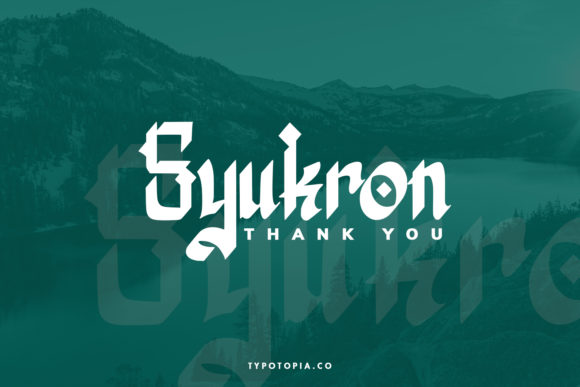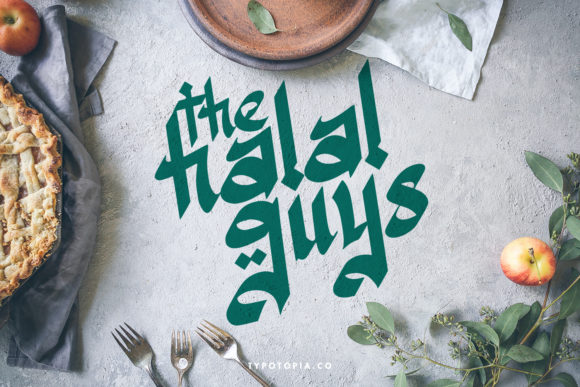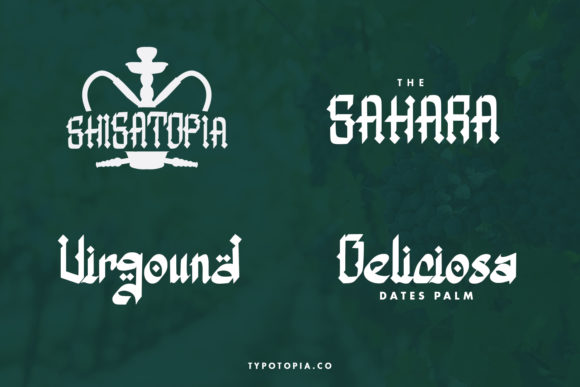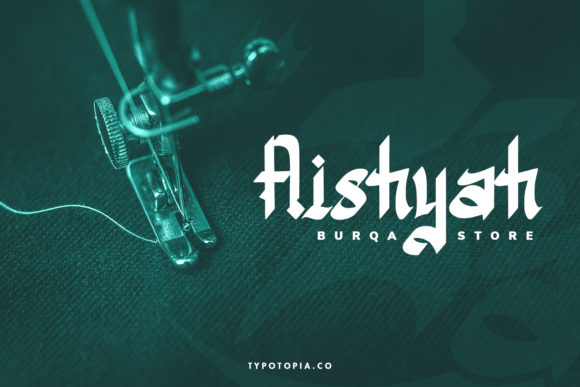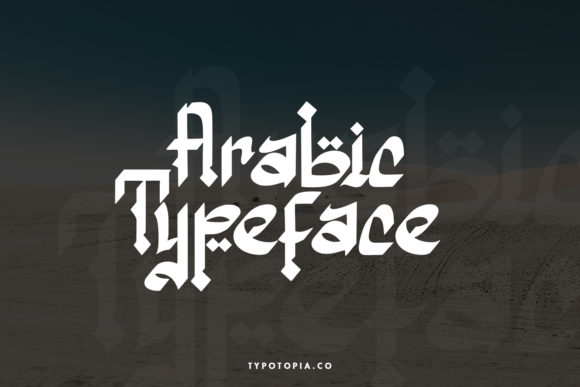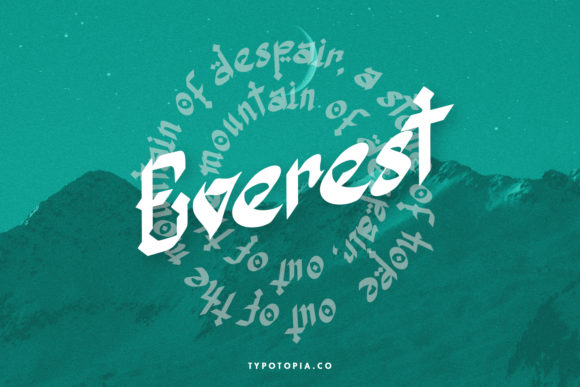
Unleash Your Creativity with the Assyam Font
Have you ever stared at a blank canvas, searching for the perfect spark to bring your creative vision to life? It’s that moment of hesitation, when the possibilities feel endless, that we often wish for a little extra magic to guide us. For designers, the right font can be just the catalyst needed to elevate their work and make it truly unforgettable.
Enter the Assyam Font, a masterfully designed display font that’s poised to take your creative ideas to new heights. With its unique character and versatility, Assyam Font is the perfect tool for designers looking to add an extra layer of sophistication and style to their work.
Whether you’re a seasoned pro or just starting out, the Assyam Font is a valuable addition to any designer’s toolkit. Its sleek, modern aesthetic makes it perfect for a wide range of applications, from branding and advertising to digital design and more.
Assyam Font Key Features
- Font Family: Assyam is a Unicode font family, specifically designed for the Assyam language.
- Character Set: Includes a wide range of characters, including Latin, Devanagari, and Assyam scripts, covering a vast range of languages.
- Unique Characteristics: Features a unique blend of traditional and modern design elements, making it an attractive choice for designers and typographers.
Assyam Font Review
Overall, I found the Assyam font to be an interesting choice for designers looking to add a unique touch to their projects. Here are some of its strengths and weaknesses.
- Unique aesthetic: Assyam has a distinctive, elegant design that can add a touch of sophistication to any project.
- Good for titles and headings: The font’s bold lines and flowing curves make it well-suited for titles, headings, and other large text elements.
- Wide character set: Assyam includes a wide range of characters, including Latin, Cyrillic, and Devanagari scripts.
- Not suitable for body text: Assyam’s design can be overwhelming when used for large blocks of text, making it difficult to read.
Overall, I would recommend Assyam for designers who want to add a touch of elegance and sophistication to their projects, but I would caution against using it for body text or on all devices. With careful usage, Assyam can be a great choice for adding visual interest to your designs.
Tips for Getting the Most Out of the Assyam Font
The Assyam Font is a beautiful and elegant script font that works well for:
- Quotes and typography-based designs.
Remember to use the Assyam Font in conjunction with high-quality images and design elements to create a stunning visual effect.